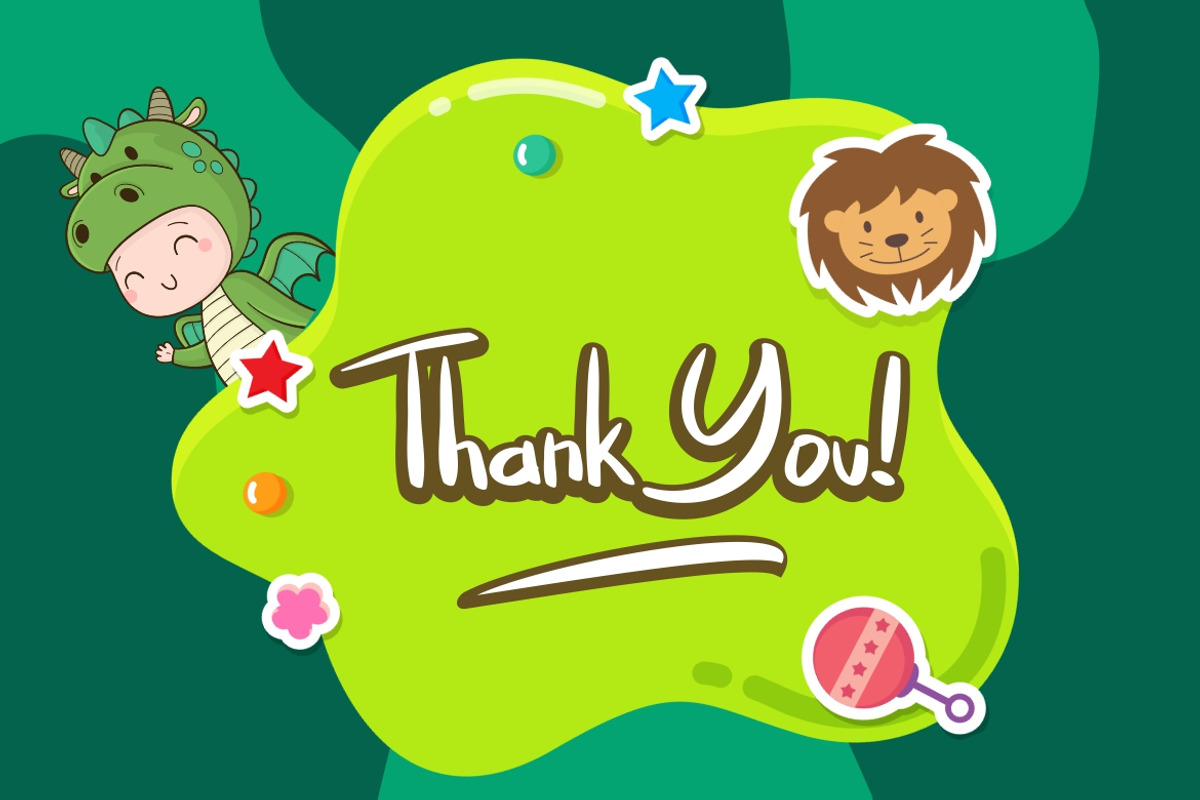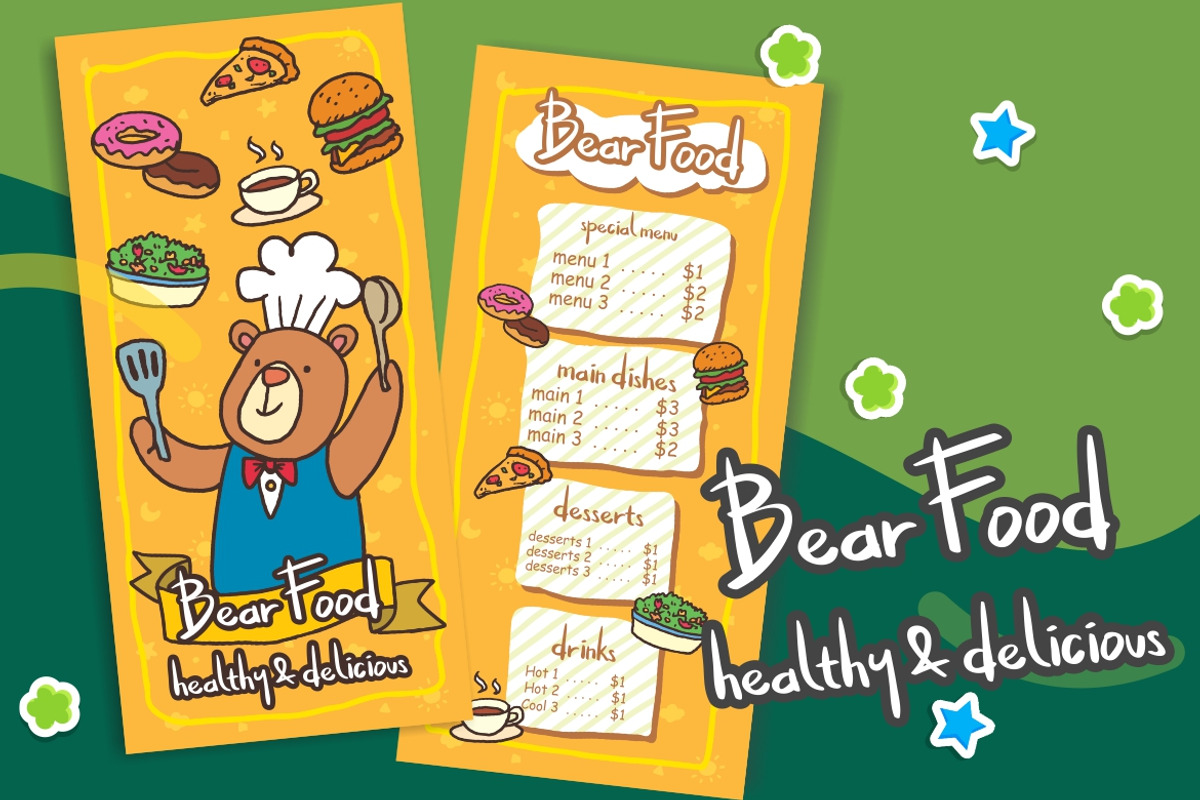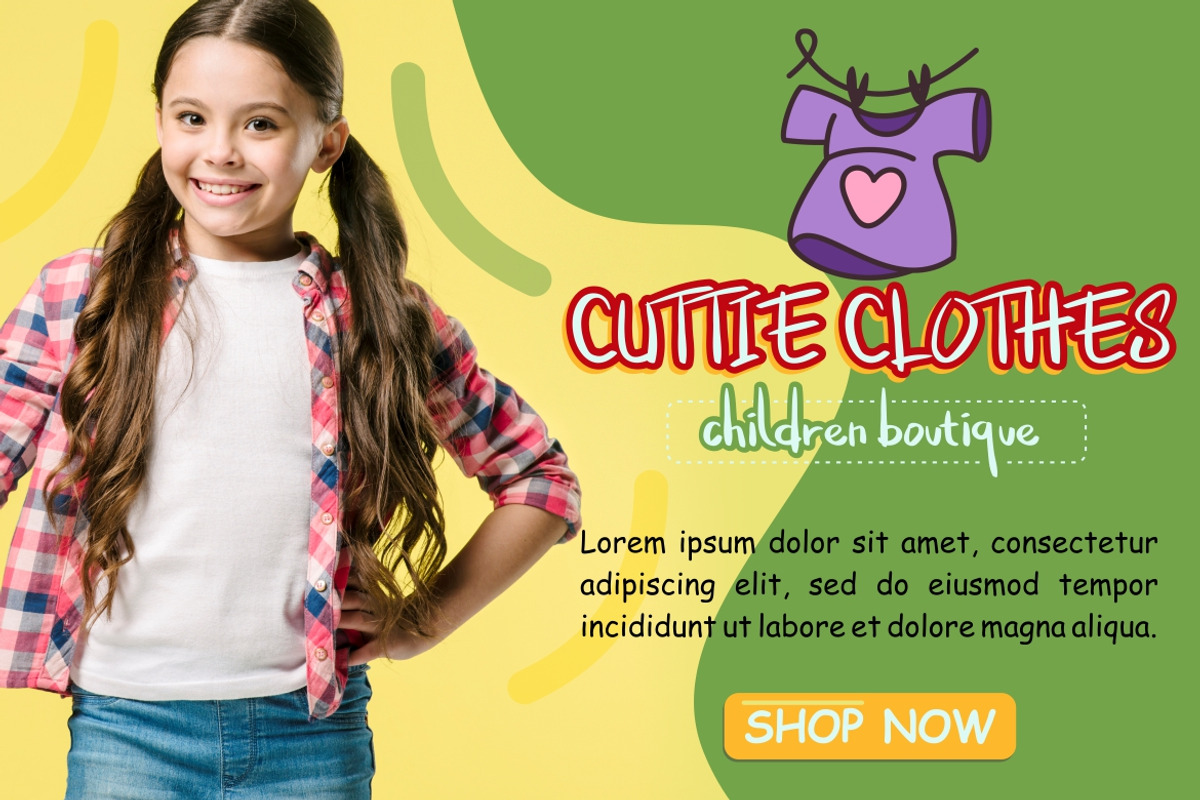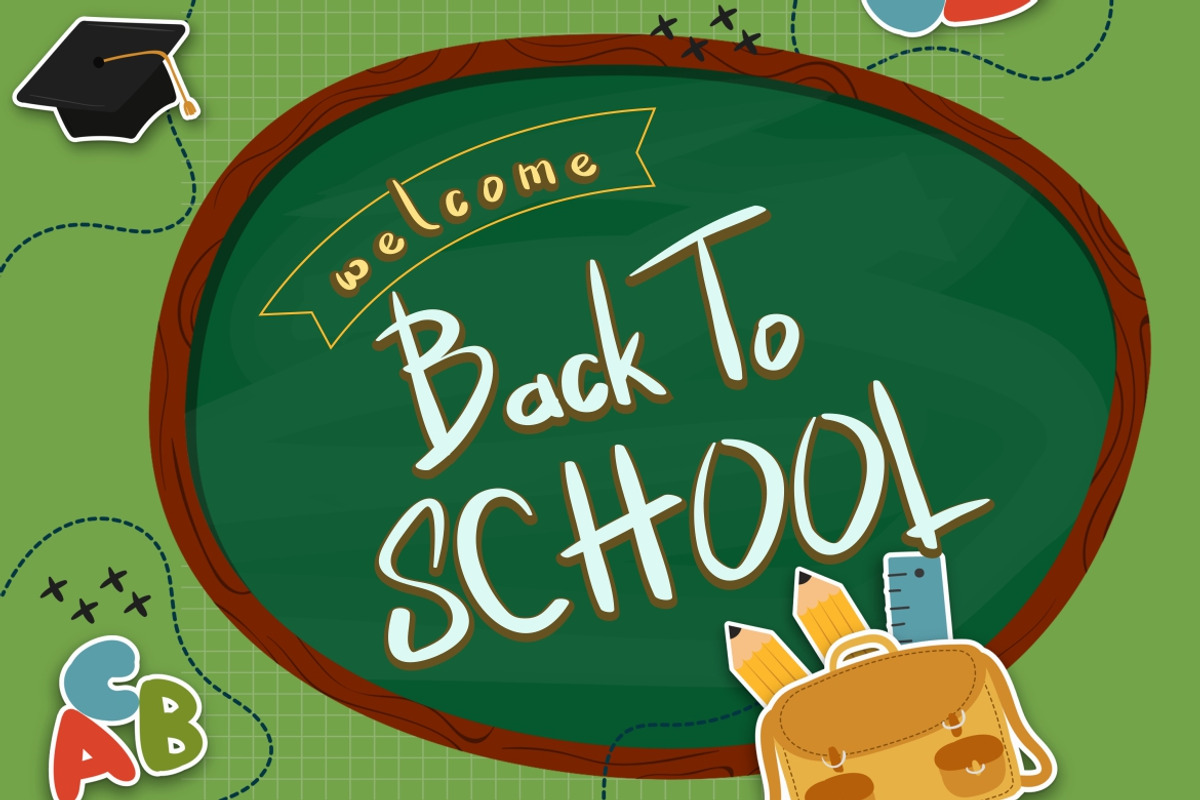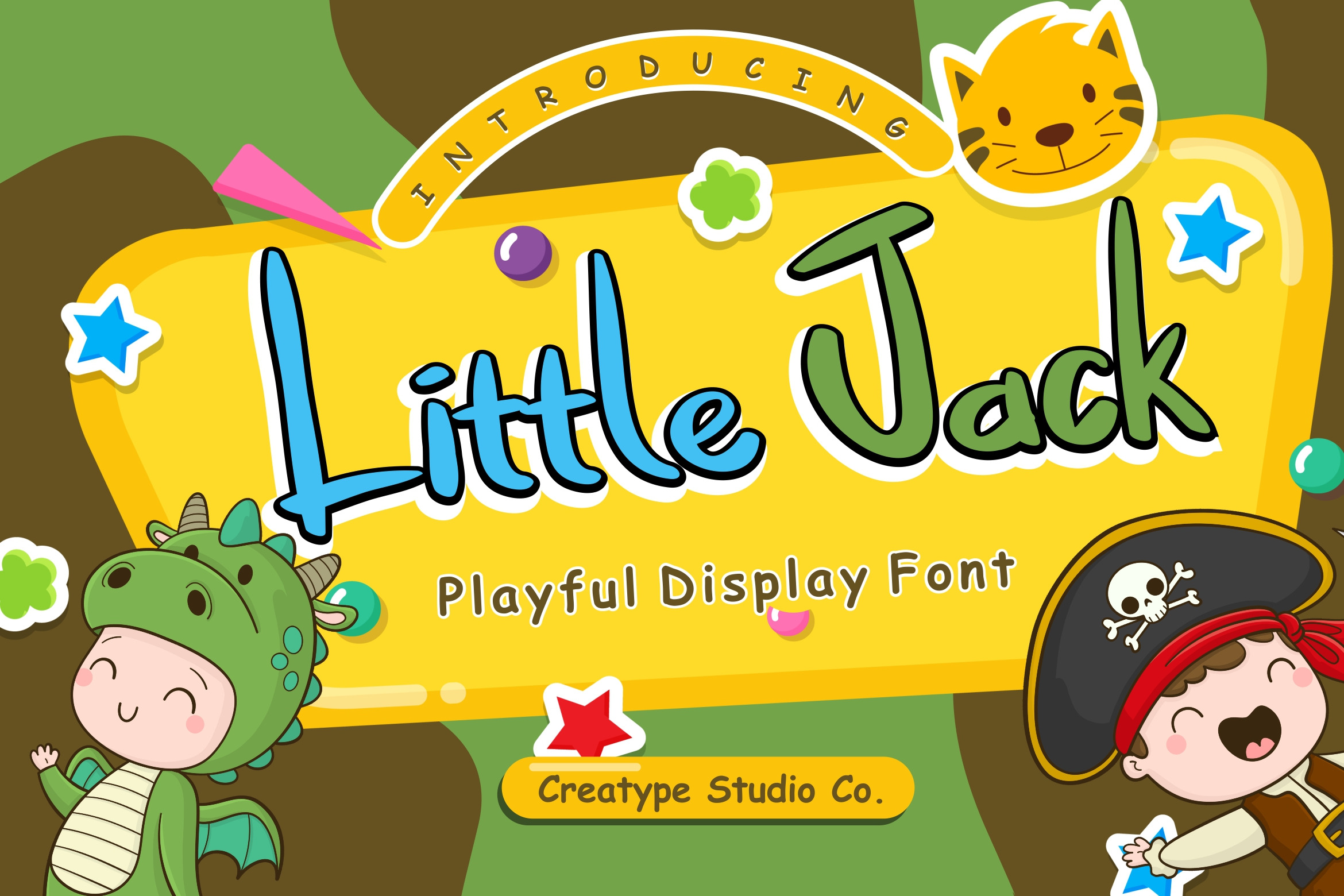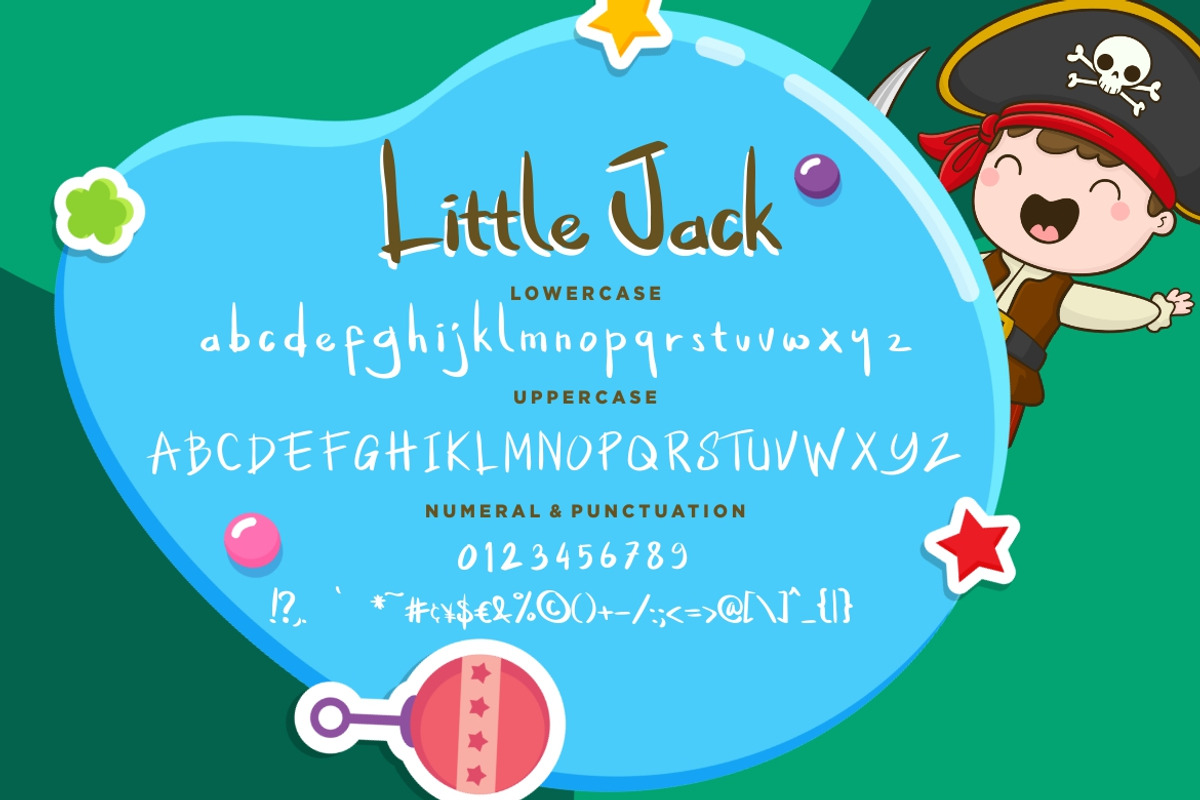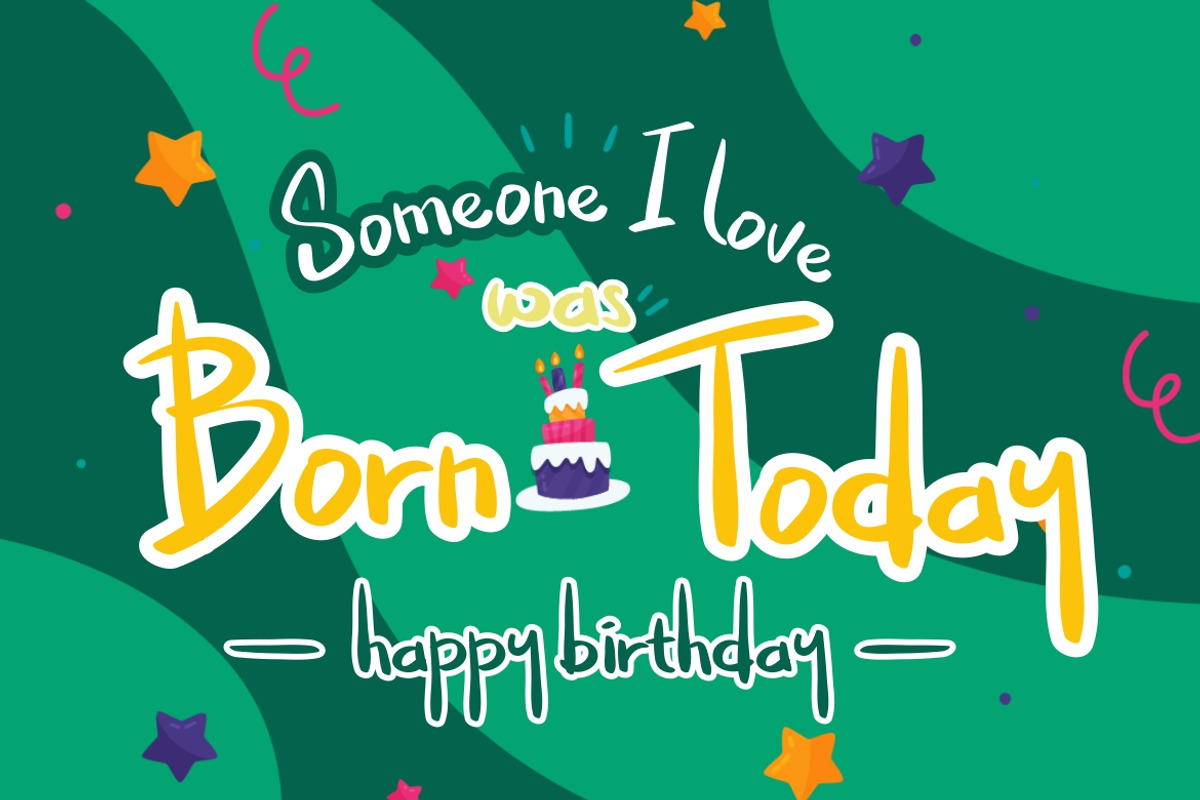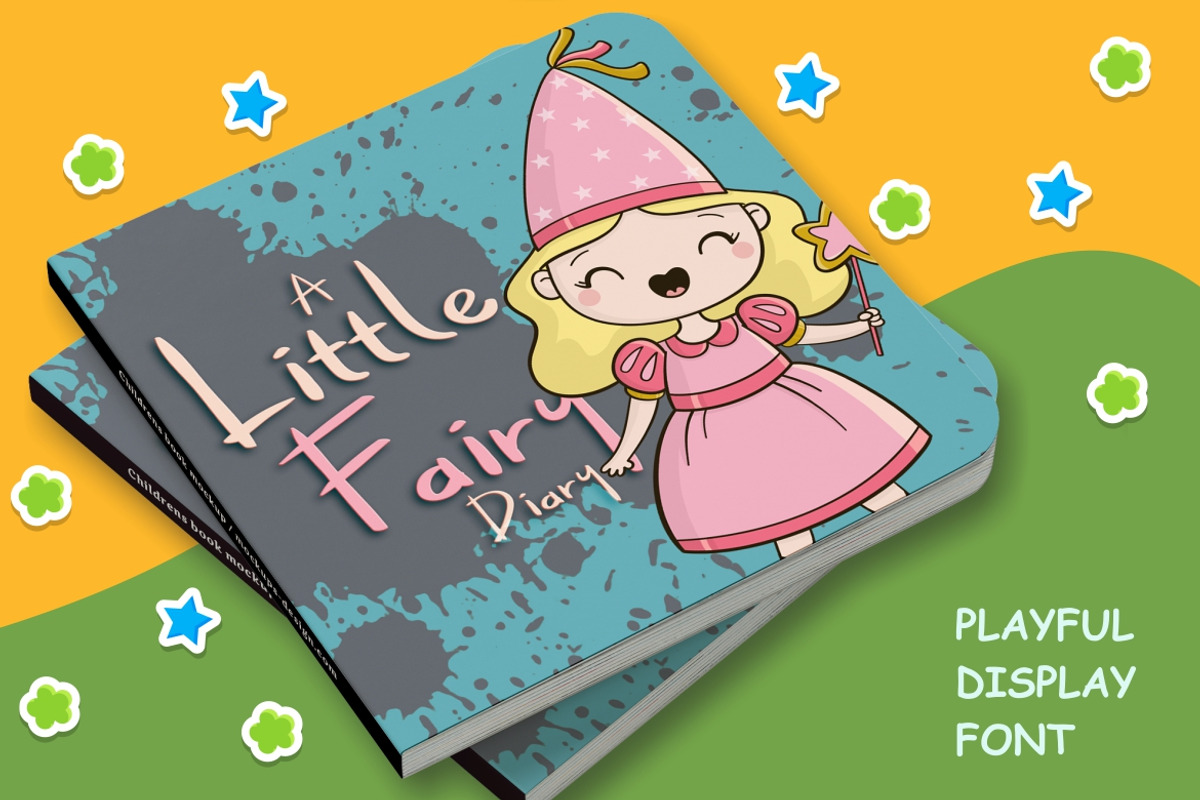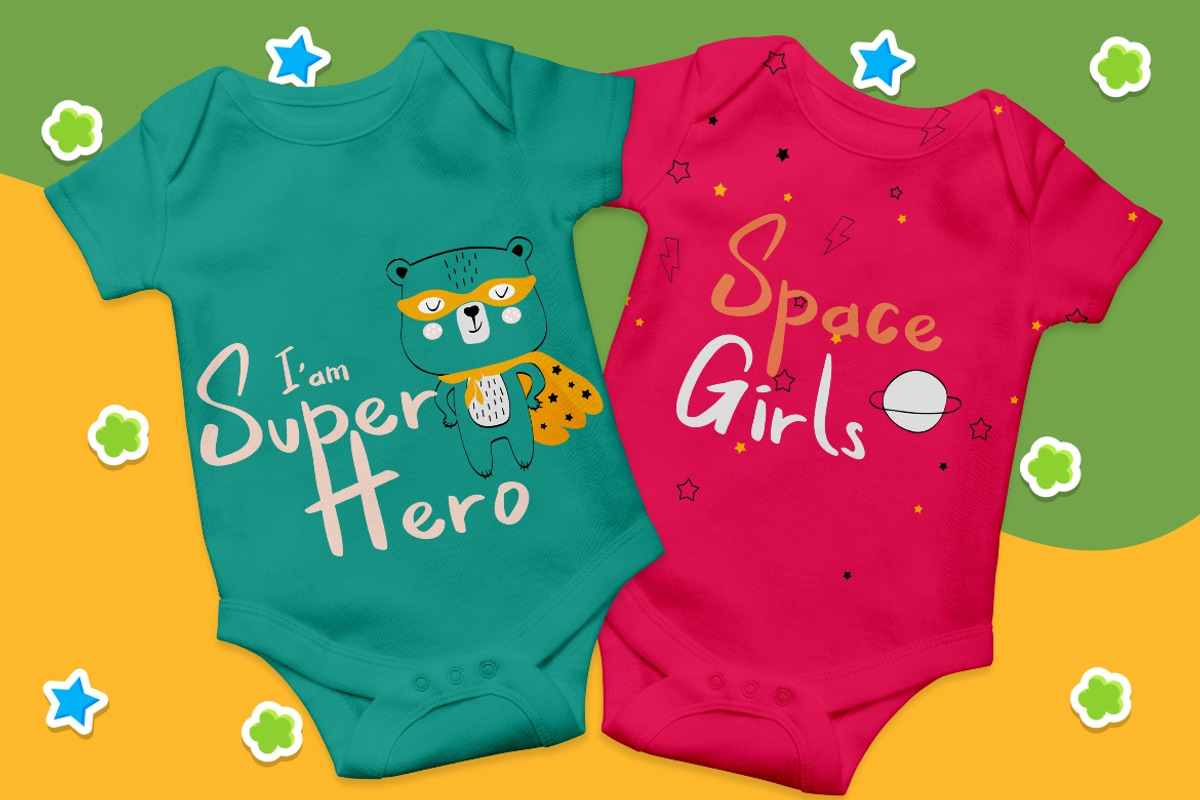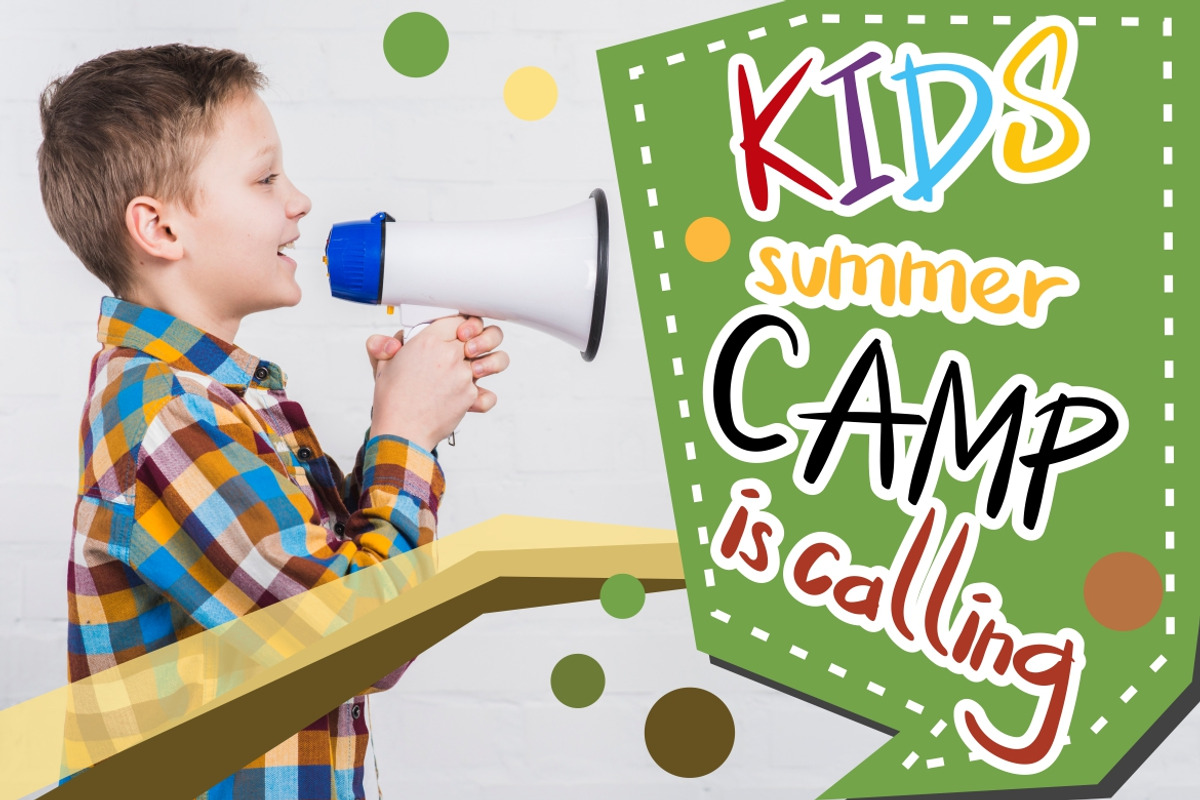
Meet Little Jack, a fun mixed case font that gives the feeling of 'jotting' something down real fast! This is hand-drawn fonts truly give off a real personal touch to your projects
It is perfect used for various purposes such as editorial design, branding, art quote, book / cover title, poster, apparel design, product packaging, label, special events or anything that need hand-drawn taste.
- Ton of glyphs (include Uppercase, Lowercase, Numerals & Punctuations)